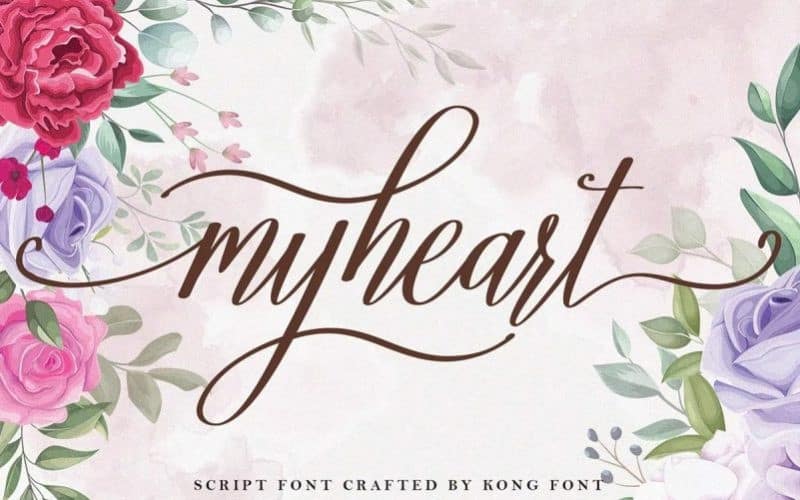
Myheart Font
Myheart Calligraphy Font, designed by Kong Font is a handcrafted and most natural, elegant, simple yet angelic font. This beautiful font can be used for various projects and promotions. Go ahead and use it on your website, your social media branding, Pinterest banners, printed invitations, and more!